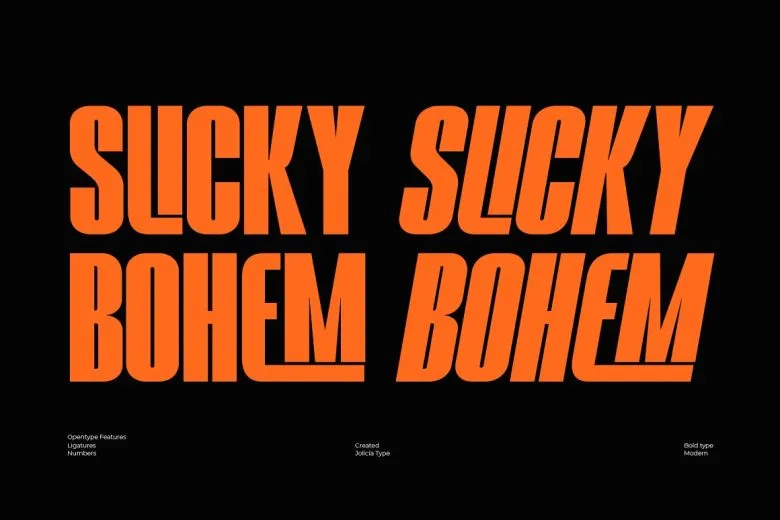
Slicky Bohem Font
SLICKY BOHEM is a rebellious condensed typeface leaning towards a geometric shape. Discretionary ligatures is a very effective set to provide you all what you want in a typography. When using typefaces, bundle lots of unique ligatures with your creative work to make yourself distinct.
Slicky Bohem Sans Serif Font